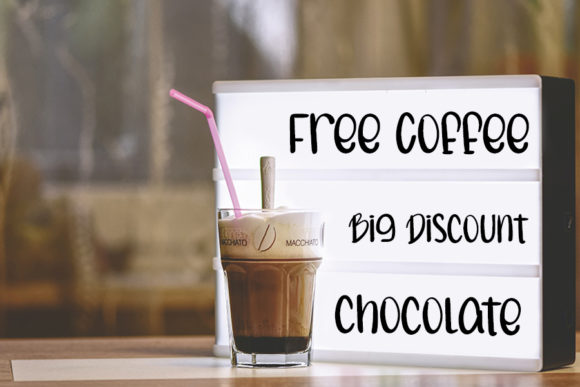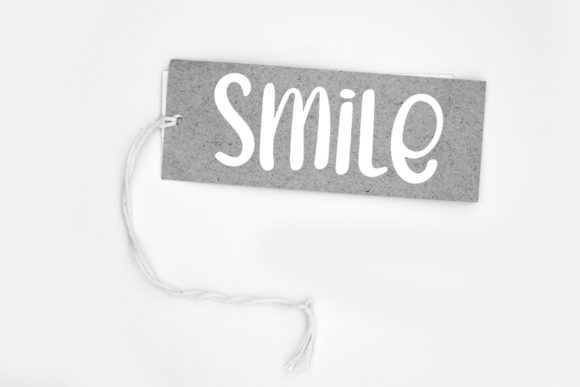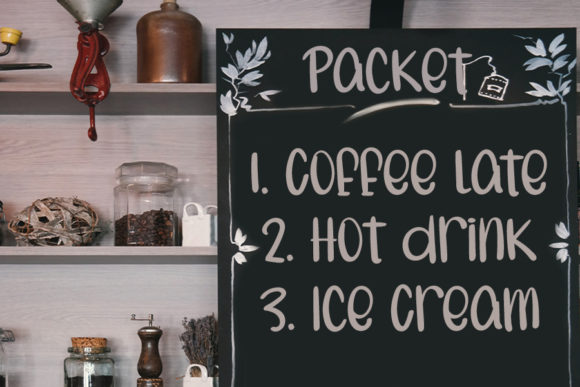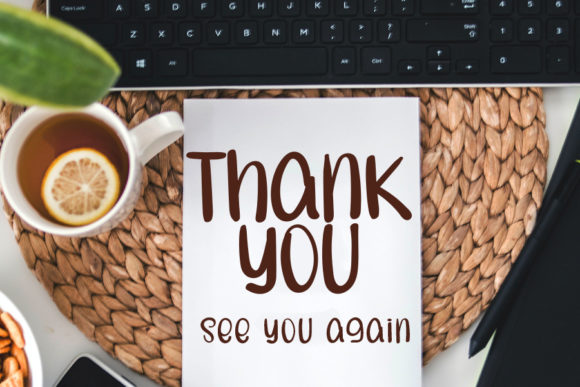
Milkshake Font
About Milkshake Font
Milkshake is a simple, natural and clean script font. Its flexibility and jolly spirit will brighten up each of your designs. Have fun with this beautiful font and explore its endless variations.